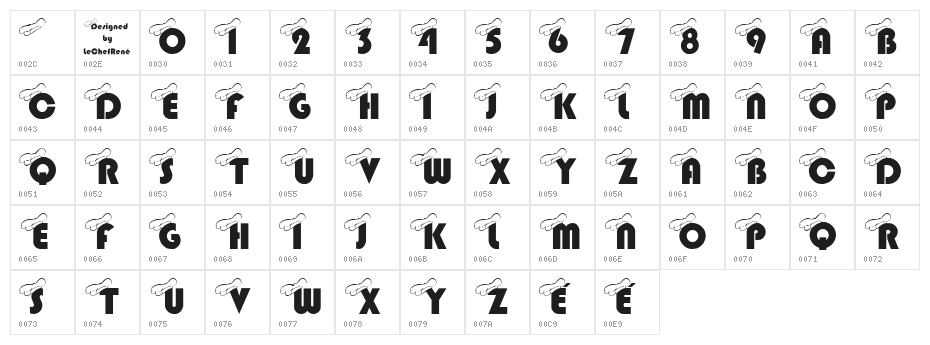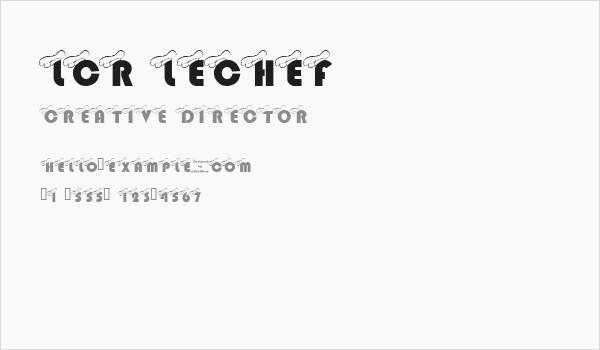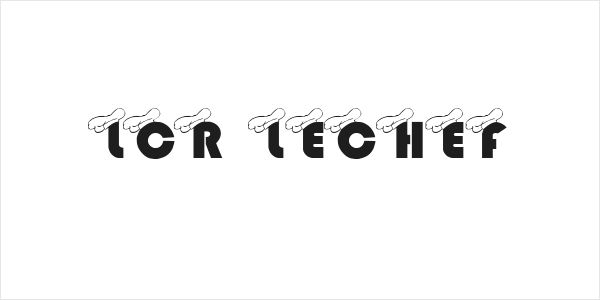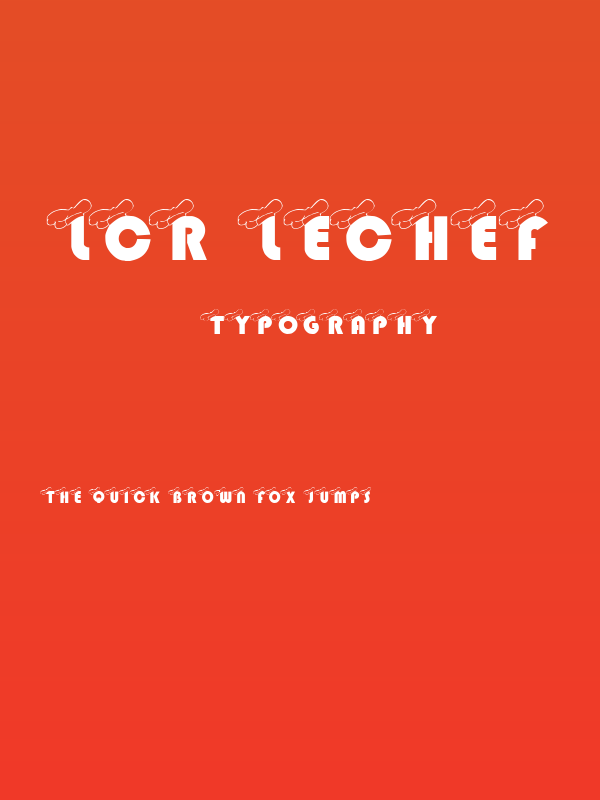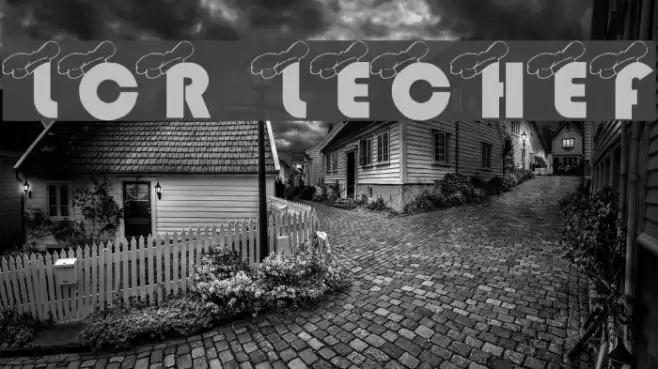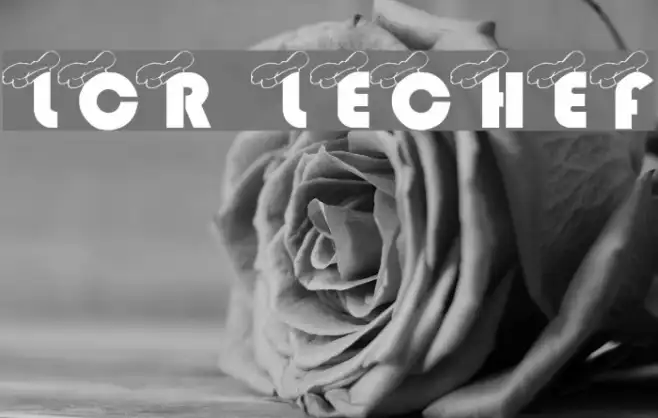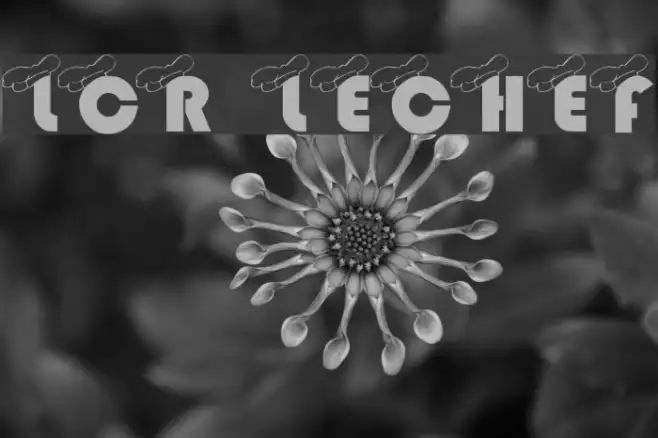
LCR LeChef Font
LCR LeChef Description
This playful and whimsical font features bold, rounded characters topped with a chef's hat, adding a unique culinary flair to each letter and number. The design is both fun and eye-catching, making it ideal for projects that require a touch of humor or a food-related theme. The characters are evenly spaced, ensuring readability while maintaining a decorative style. The font's bold weight and medium contrast in stroke thickness contribute to its strong visual impact, making it suitable for various creative applications.
| Use Case | Logos, Headlines, Themed Events |
| Proposed Projects | Ideal for restaurant branding, menu designs, cooking blogs, children's cookbooks, and food-related event invitations. |